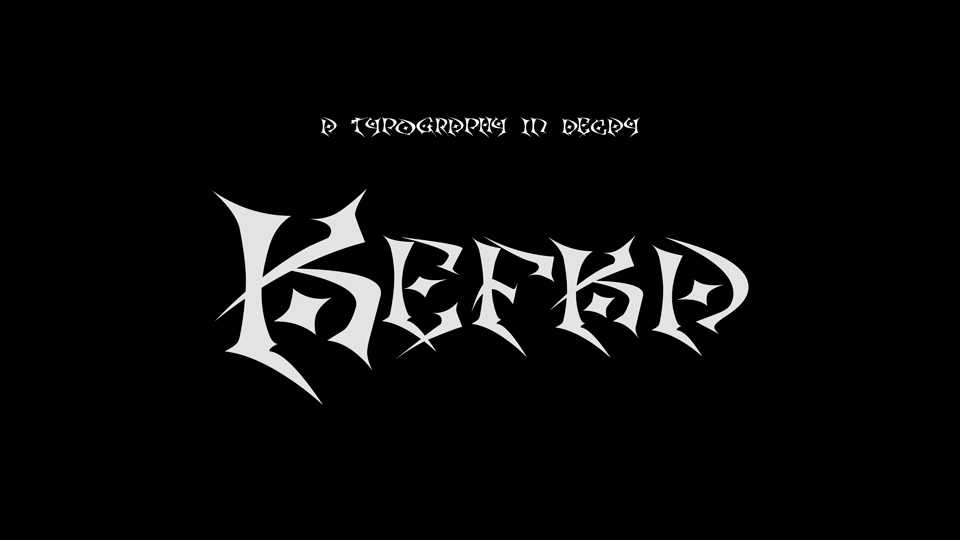
Download Kefka font, a impressive display typeface kinda like medieval graffiti look. Kefka is great for posters and prints, decorative headlines and short texts.